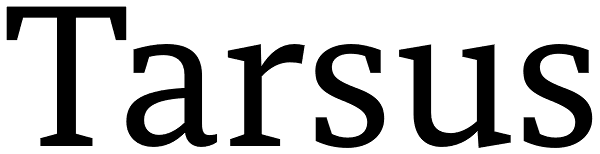
Tarsus
Tarsus is a sturdy serif typeface for the Latin script. It has been optimised for text, and will handle any environment you throw it into, even newsprint. Its letters feature sharp, wedge-like serifs and open counter forms. Text set in small sizes...